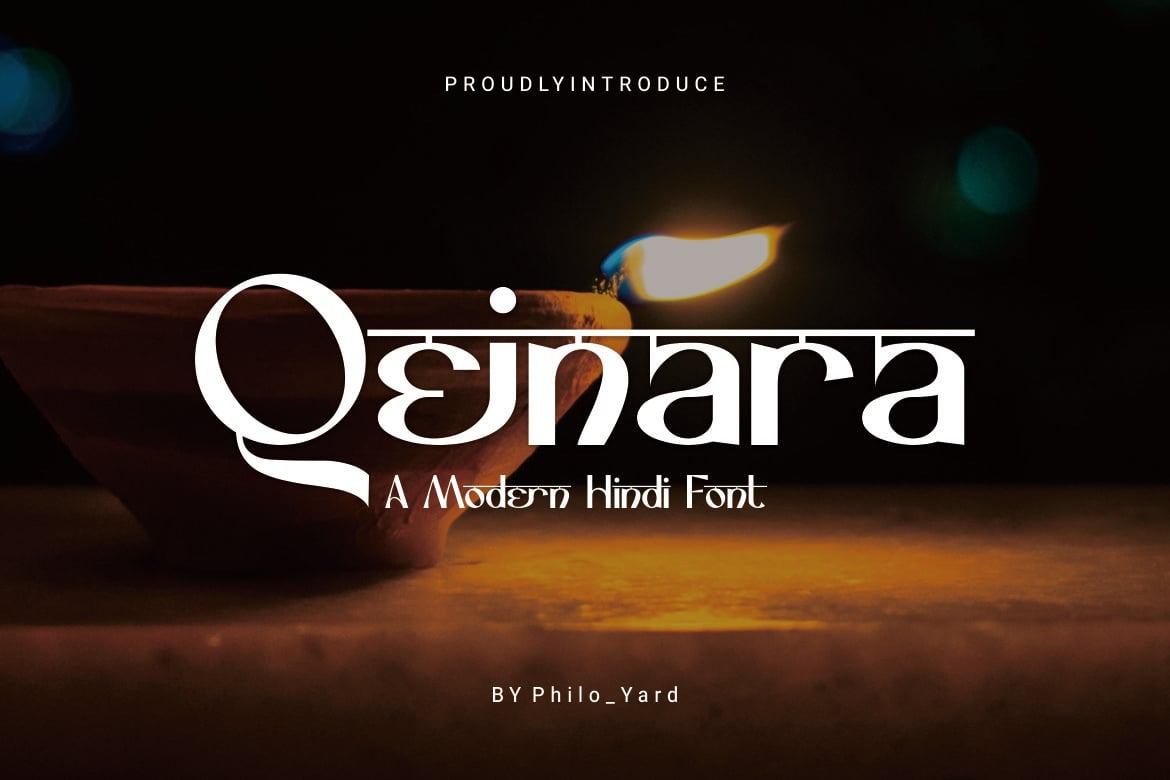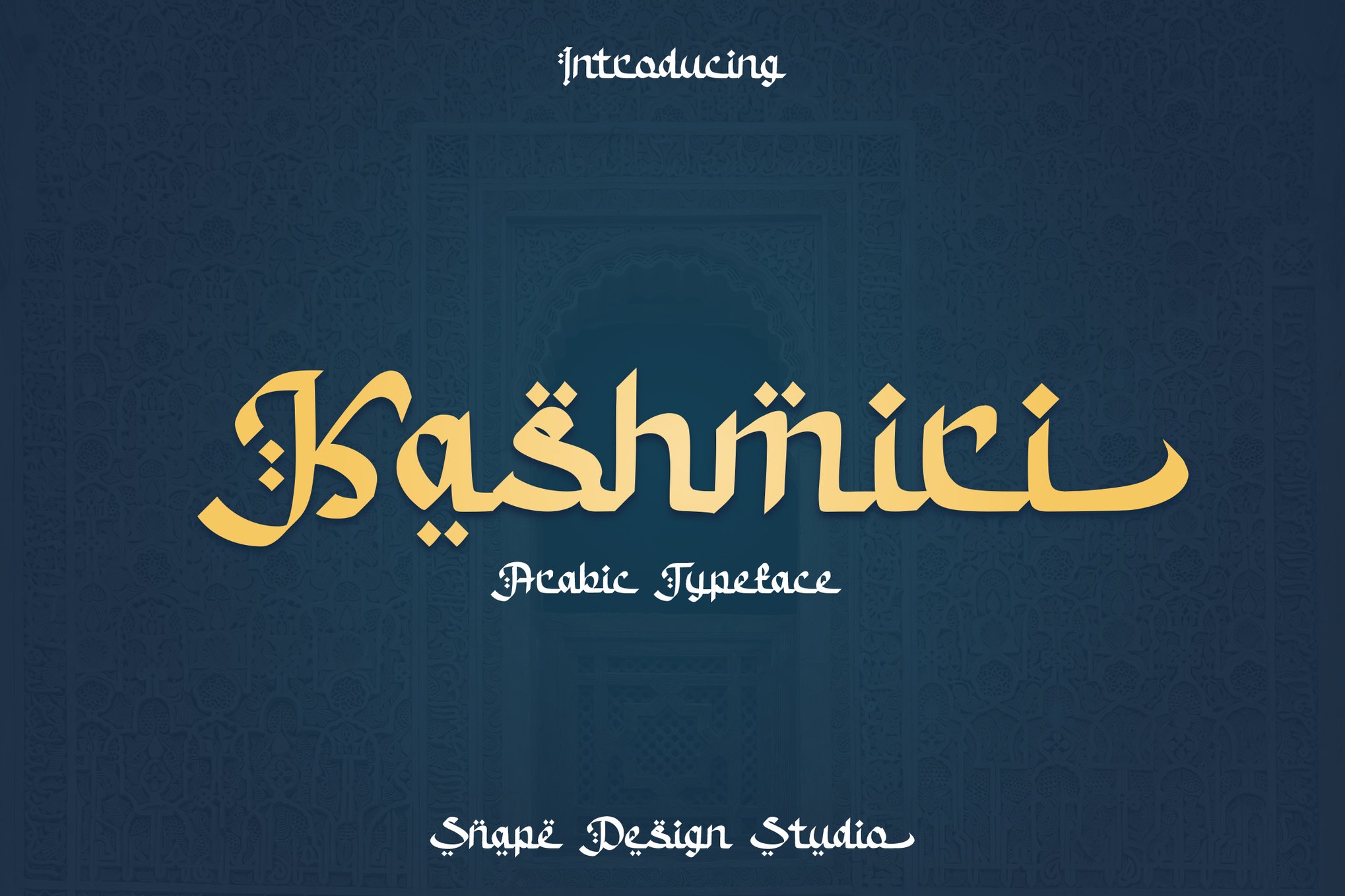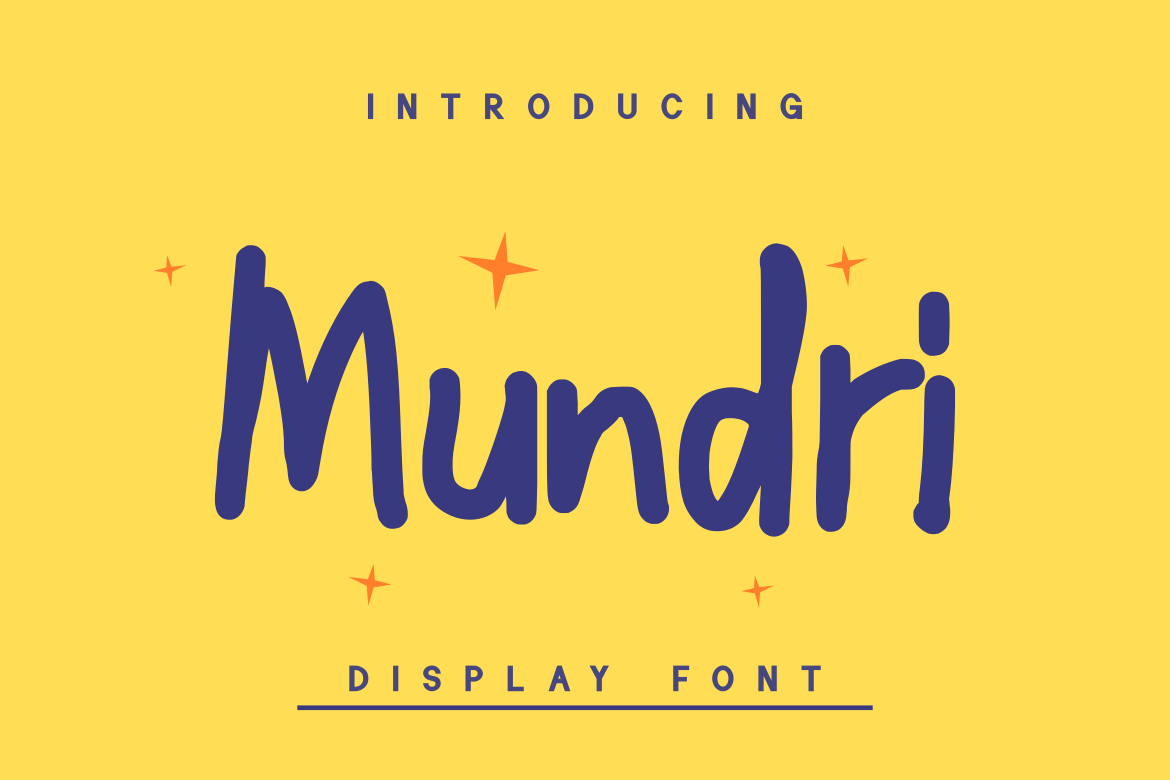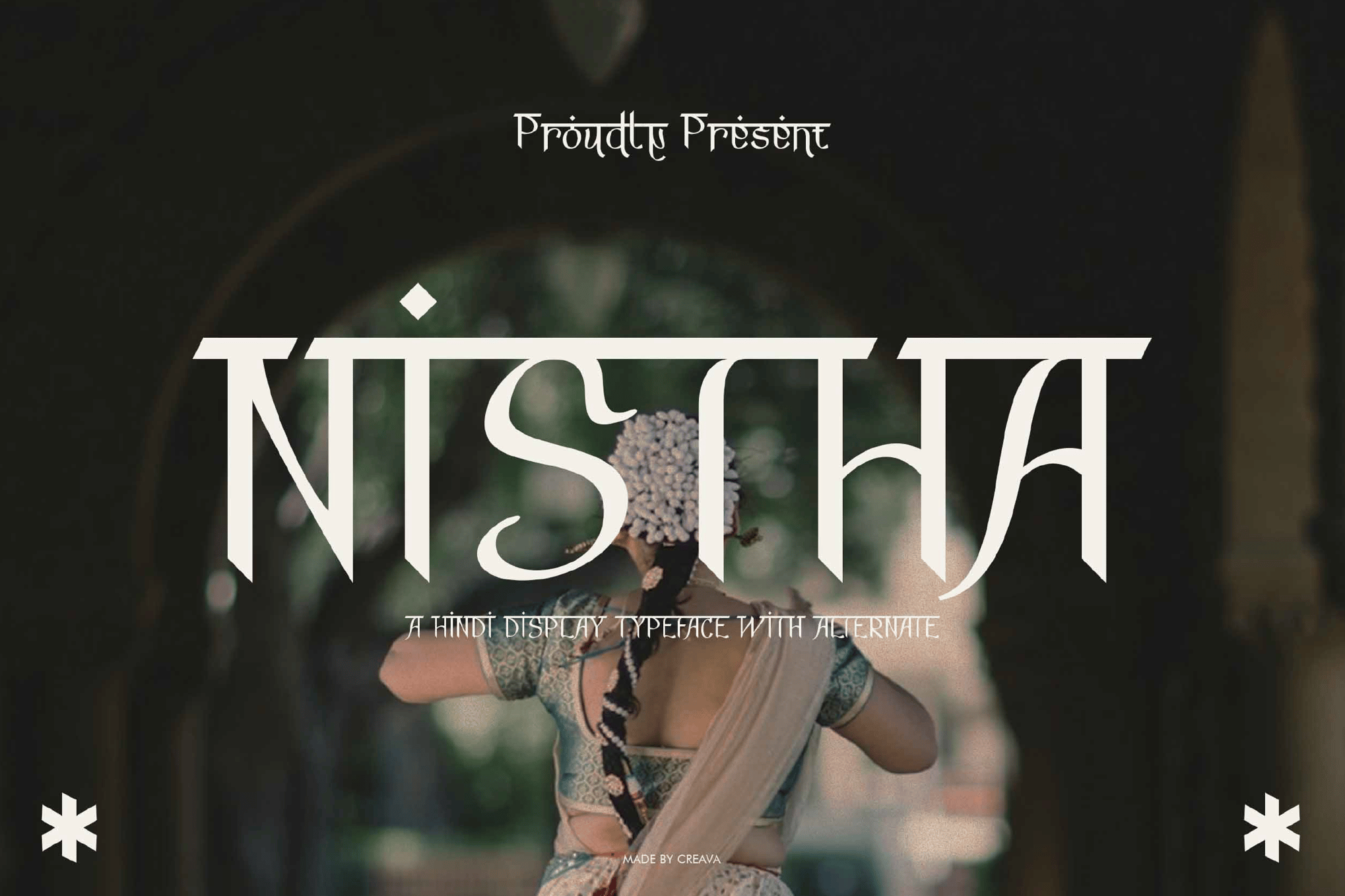
15+ Best Ethnic & Indian Style Fonts
Indian-style fonts, with their intricate details and cultural motifs, are perfect for adding warmth and authenticity. Whether you’re designing a wedding invitation, a festival poster, or a brand identity, these fonts can turn ordinary visuals into something deeply meaningful.
In a world where design often leans toward minimalism, ethnic and Indian fonts bring a unique blend of tradition, vibrancy, and storytelling to your projects.
In this post, you’ll find a collection of different Indian-style font options, each carrying its unique appeal. From scripts to modern fusion typefaces, these fonts celebrate India’s rich heritage while fitting seamlessly into contemporary design. Dive in and find your favorite Indian font.
Krishna – Authentic Indian Font
This beautiful Indian-style font comes with a bold and solid letter design. It’s fitting for a variety of uses, such as event promotions, posters, poetry, movie or book titles, and brand identities. The font features decorative elements inspired by traditional Indian cultural elements. It’s available OTF, TTF, and WOFF versions.
Hindi Raj – Festive Indian Font
Hindi Raj is a festive Indian font that infuses your designs with the vibrant traditions and rich cultural tapestry of Indian festivities. This Gentle Sans Serif and ornate decorative font, inspired by India’s blazing colors and festivities, adds an extraordinary touch to your projects, making it ideal for logos, social media posts, editorials, and more.
Kantata Aksara – Ethnic Indian Font
Kantata Aksara is a captivating display font inspired by Indian culture. Exuding tradition and unique stylistic features, it’s perfect for cultural logos, ethnic paraphernalia, yoga and meditation items, beauty products, and more. This font comes with uppercase and lowercase options, numbers, punctuation, alternates, and multilingual support.
Mahatie – Traditional Hindi Font
Mahatie, a traditional Hindi font, skillfully merges classic Indian script aesthetics with modern typographic elements for a bold, bold style. Its ornate details and intricate embellishments are inspired by Indian calligraphy, enhancing its cultural richness. The strokes are bold and well-defined, ensuring readability even at smaller sizes.
Qasira – Modern Hindi Font
Qasira is a modern Hindi font that encapsulates the authentic flair of Indian styles into a versatile display font. Perfect for branding projects, logo designs, or product templates, its elegance stands out in various contexts. Qasira is available in both uppercase and lowercase, supports multiple languages, and offers alternate characters in otf and ttf formats.
Indikhala – Eid Ramadan Font
Indikhala is a vibrant, multicultural font bringing the spirit of Ramadan Kareem to life in your designs. Its unique monoline style, masterfully blending contrasting weights, captures the celebratory magic of Indian-inspired festivities. Awesome for projects needing an artistic touch, Indikhala is perfect for websites, logos, posters, and social media posts.
Niranjan – Creative Hindi Font
Discover the seamless blend of ancient and modern through the Niranjan font. Designed to blend traditional Indian calligraphy with contemporary typography, this elegant and versatile font serves as a touchstone to Indian heritage. Perfect for use in branding, packaging, or editorial design, Niranjan offers a unique identity that stands out.
Night Hindi – Indian Style Font
Night Hindi is a beautifully crafted, Indian Style Font that truly captures the elegance and flow of traditional Hindi scripts. Ideal for festive occasions, cultural events or holiday celebrations, this versatile font includes features such as multilingual characters, US Roman, and Latin 1 support.
Qawatone – Hindi Display Font
Qawatone is a distinctive Indian-style font that is perfect for creating a bold visual impact in various designs. Whether it’s labeling, movie titles, gig posters, album covers or logos, this font is ready to use and make your work outstanding. It comes in OTF, TTF, and WOFF formats adding to its usability.
Taiganja – Indian Style Font
Taiganja is a unique serif font that proudly embodies Indian artistic traditions and aesthetics. Perfect for personal or business applications, Taiganja comes in OTF, TTF, and WOFF formats in a compact ZIP file. It’s perfect to induce your designs with the rich cultural tapestry of India.
Kajoly – Hindi Display Font
Kajoly is a remarkable Indian-styled font offering versatility and flexibility for a range of projects. This modern, authentic font is ideal for professional branding needs including logos, quotes, blog headers, posters, invitations, and stationery. The font is available in OTF, TTF, and WOFF file formats.
Ghutamila – Traditional Hindi Font
Ghutamila is a dynamic and genuine Indian-style font. Ideal for a variety of branding needs from logo designs to esports and more, this versatile font effortlessly stands out in diverse contexts. Available in uppercase, lowercase, and multilingual formats with ligatures, it is provided in both otf and ttf files ensuring optimal usability.
HINDU REKHTA – Free Ethnic Indian Font
This free Indian font comes with a bold and modern letter design with ethnic elements. It’s especially great for crafting bold titles and headings for designs such as posters, websites, and flyers.
Hindi Mantrakshar – Free Indian Font
This is a very unique and free font you can use in your personal projects. It comes with creative Indian-style characters with various decorative elements. The font is ideal for creative Hindi typography designs.